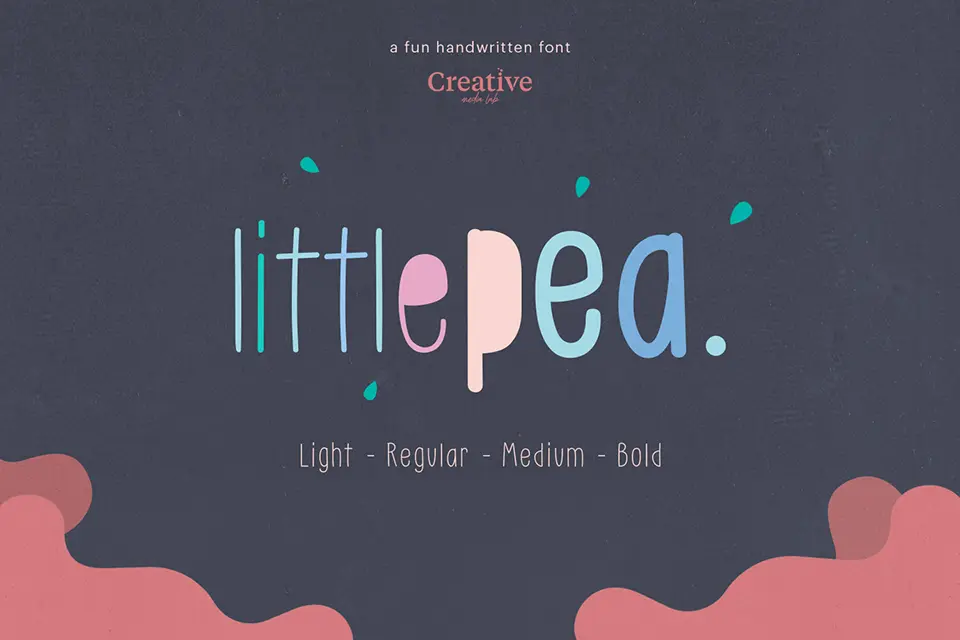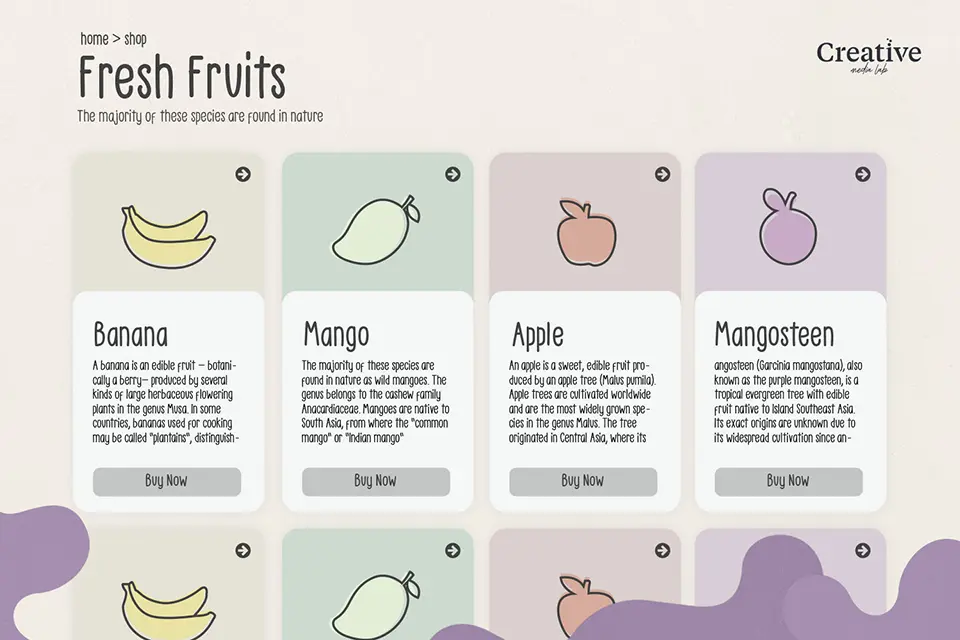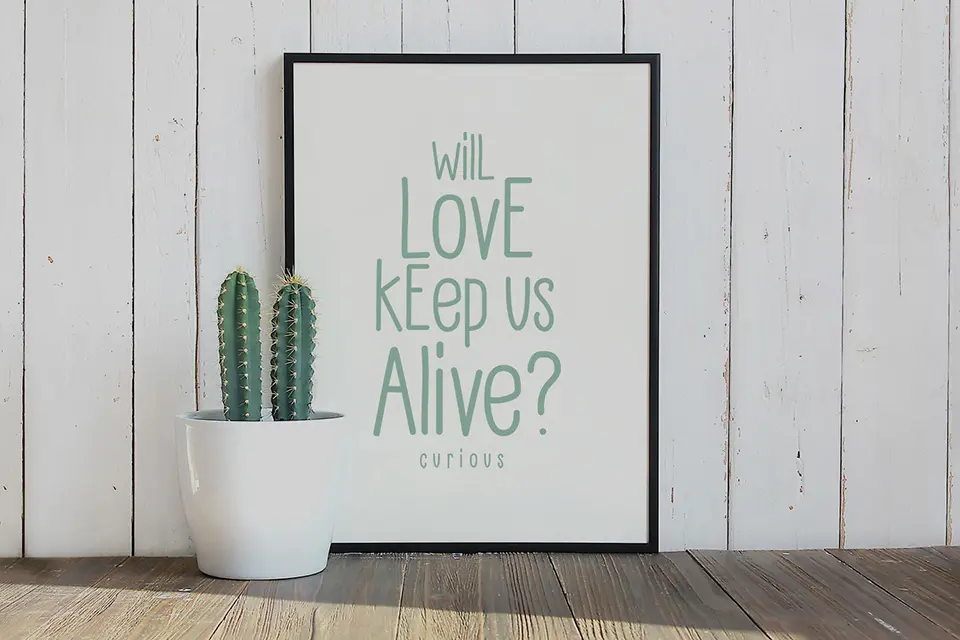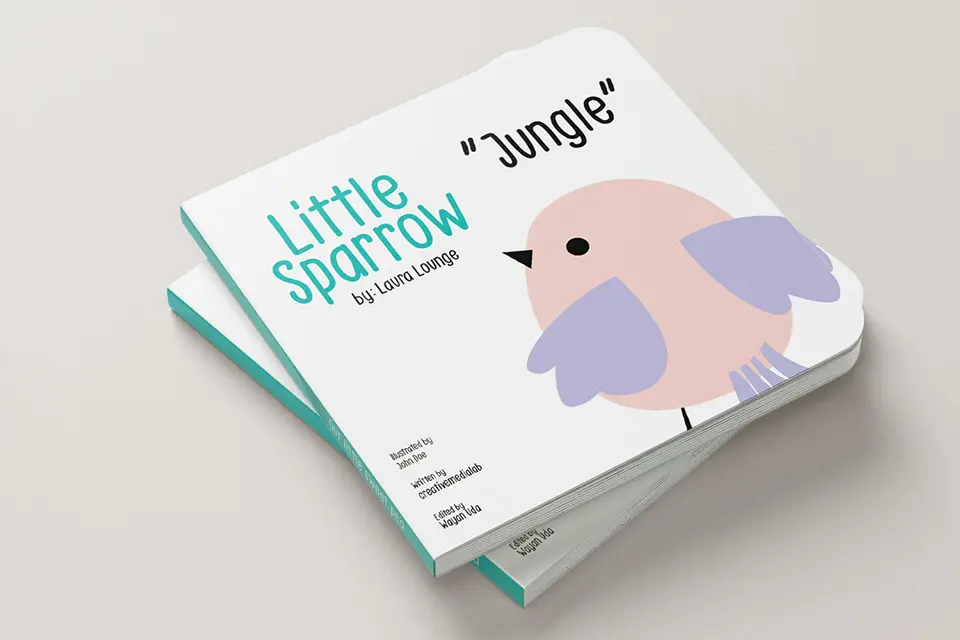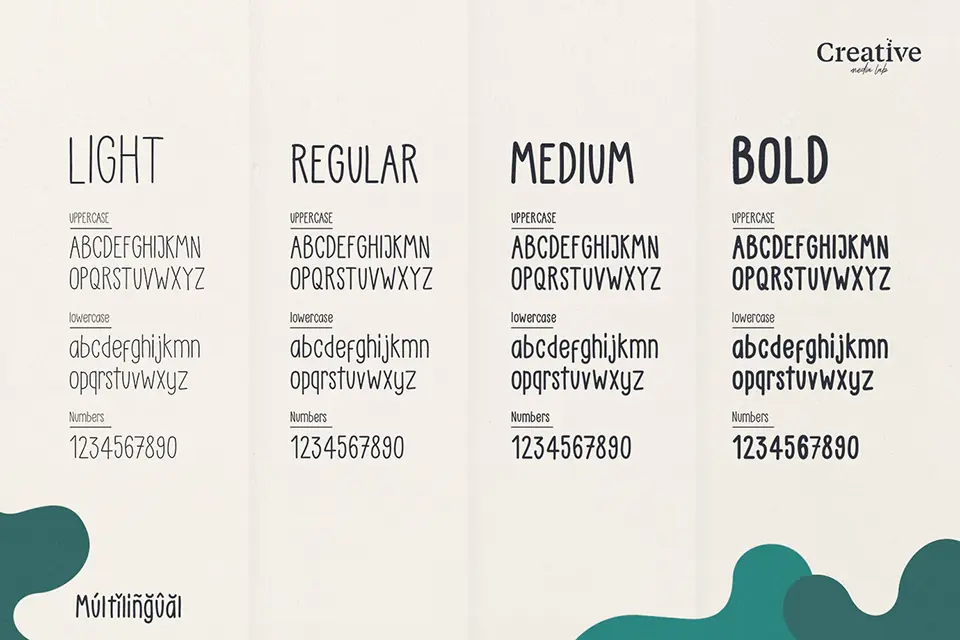
Little Pea Font
Little Pea Font is a charming handwritten font family that exudes playfulness and personality. This versatile typeface comes in four weights – light, regular, medium, and bold – making it adaptable for various design needs. Its cute and fun characteristics make it perfect for children’s books, comics, greeting cards, toys, posters, and picture books. The font’s handwritten style brings a personal, friendly touch to any project. Little Pea’s design strikes a balance between casual approachability and professional craftsmanship, making it suitable for both creative and commercial applications. The font supports multiple languages and can be used across different platforms and devices.